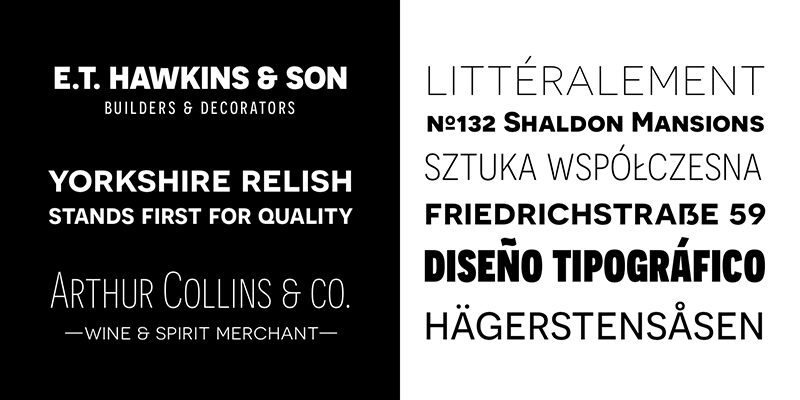
Novecentosanswide-Light
Jan Tonellato
OVERVIEW: This is the 3rd release of Novecento sans, a Caps + small-caps font family inspired on european typographic tendencies between the second half of 19th century and first half of the 20th. It looks rational and geometric. However, it is optically corrected and balanced. This font face is designed to be used mostly for headlines, visual identities or short sentences, both in big and small sizes. Novecento sans is very versatile: lighter faces provide a more contemporary and design look&feel, while the bolder ones definitely look retro. Novecento family was spaced and kerned with love and patience; each font has between 700 and 1050 kerning pairs. This font is available for licensing in opentype and webfont format, as well as for mobile apps, ebooks and for software embedding.
OPENTYPE FEATURES:
AALT Accesses All Alternate glyphs from the Glyphs panels in Adobe Illustrator or Indesign.
CASE Sets All-Caps to activate case sensitive forms: transform lowercase letters, figures and some extra signs to Uppercase; vertically aligns math symbols and punctuation.
DNOM & NUMR Transforms 0 to 9 figures into numerators (aligned to cap height) and denominators (aligned to baseline).
FRAC Custom fractions generation feature.
SUPS Transforms 0 to 9 figures into superiors.
LOCL Romanian, Moldavian and Polish advanced diacritics support; automatic Catalan punt volant; Dutch localization for accented ij; localization for Turkish i (works also for Kazakh, Tatar, Crimean Tatar, Azeri. Just select your text language to activate the localized accents)
CALT detects German ß in an uppercase string and substitute it with its uppercase version/
SS01 / SALT Alternate Q letter shape for ultra narrow line heights. Implemented both as Stylistic Set n°1 (ss01) and Stylistic Alternate (salt) to maximize compatibility between applications.
SS02 / SALT Alternate N letter shape. Implemented both as Stylistic Set n°2 (ss02) and Stylistic Alternate (salt) to maximize compatibility between applications.
SS03 / SALT Alternate I letter shape. Implemented both as Stylistic Set n°3 (ss03) and Stylistic Alternate (salt) to maximize compatibility between applications.
SS04 / SALT Alternate J letter shape. Implemented both as Stylistic Set n°4 (ss04) and Stylistic Alternate (salt) to maximize compatibility between applications.
SS05 / SALT Alternate Y letter shape. Implemented both as Stylistic Set n°5 (ss05) and Stylistic Alternate (salt) to maximize compatibility between applications.
LNUM/ONUM Lining / oldstyle figures; LNUM transforms numbers and monetary symbols in Uppercase; ONUM do the opposite (default figures are ONUM).
TNUM / PNUM Tabular/ proportional figures. Figures (numbers, monetary and math symbols) of same width always align, in spite of their weight.
ZERO / SALT Slashed zero alternate glyph. Works with tabular and proportional figures, numerators, denominators and superiors. Implemented both as Zero as Salt to maximize compatibility between applications.